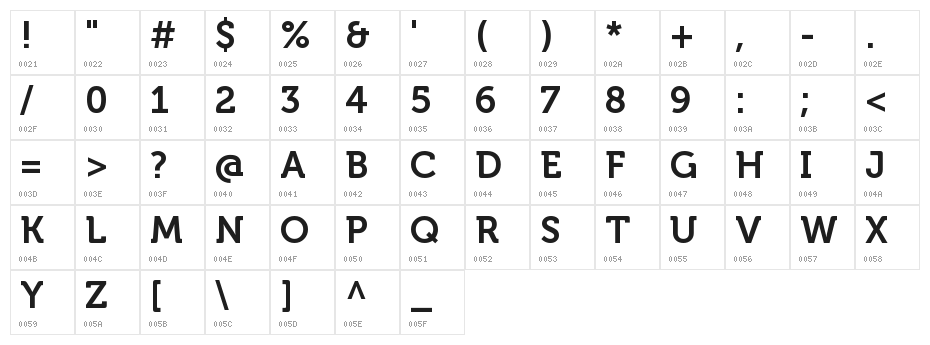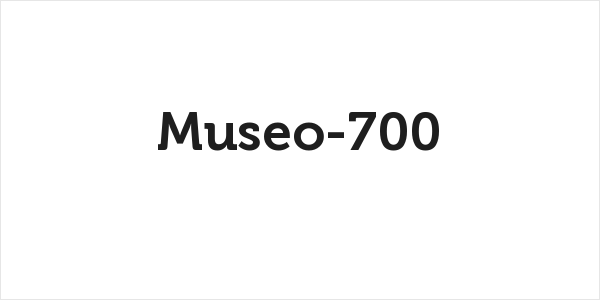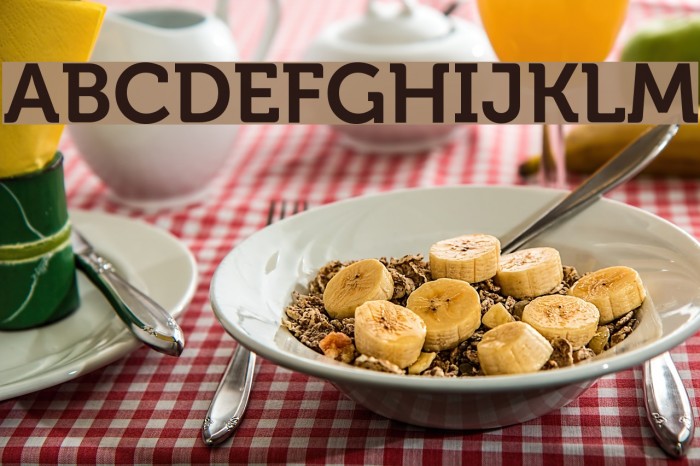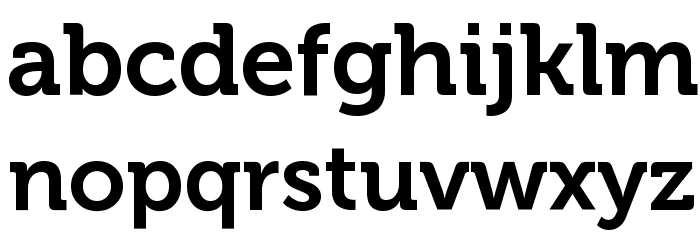
Museo-700 Font
Museo-700 Description
This font features a robust and modern design with a strong presence. The characters are well-defined with a uniform stroke width, giving it a clean and professional appearance. The uppercase letters are bold and commanding, while the lowercase letters maintain a consistent and harmonious flow. The numerals are clear and easily distinguishable, making them suitable for various applications. The special characters are crafted with precision, adding to the font's versatility. Overall, this font is ideal for projects that require a contemporary and authoritative look.
| Use Case | Headlines, Logos, Branding |
| Proposed Projects | Ideal for branding, headlines, posters, and digital media where a strong and modern look is desired. |